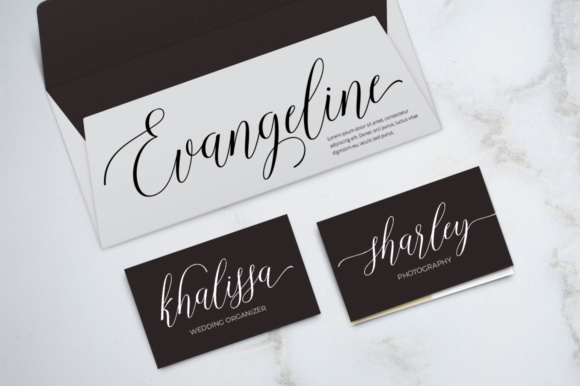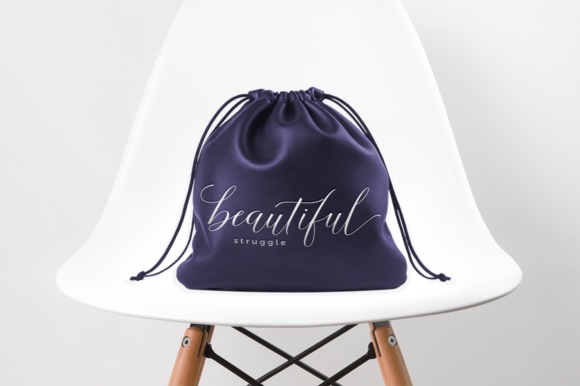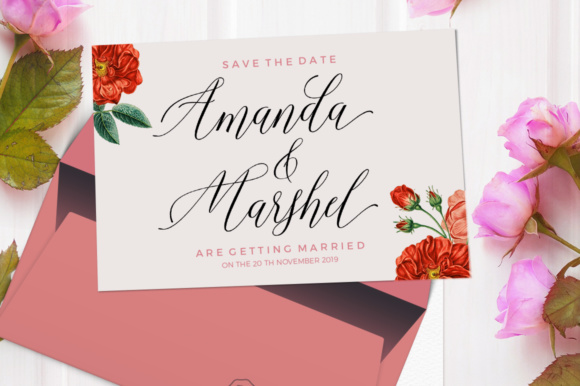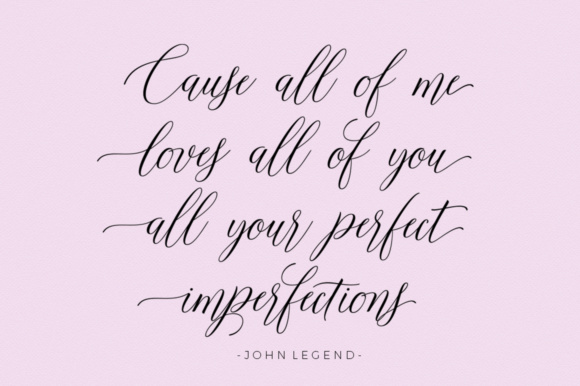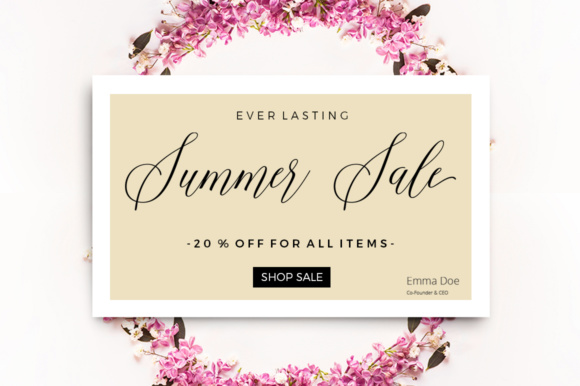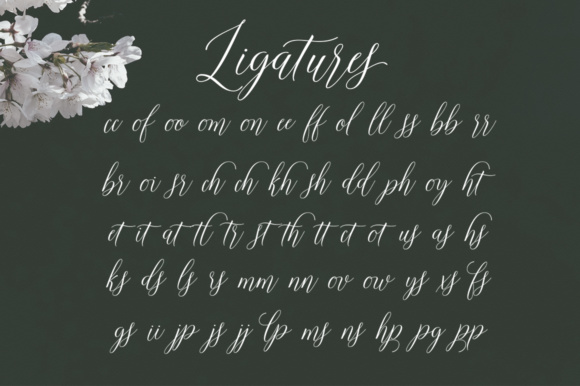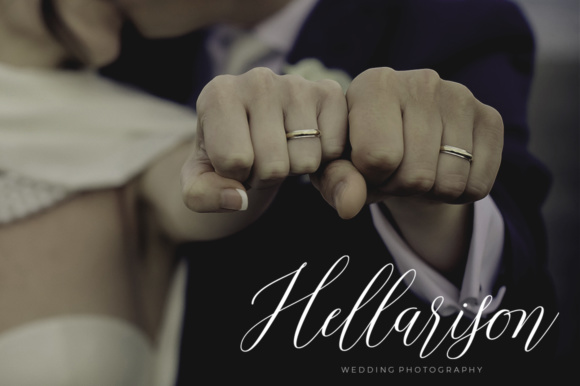
Shirelda Script Font
About Shirelda Script Font
Shirelda is a modern calligraphy font with a moving baseline and a elegant touch. It can be used for various purposes such as headings, signatures, logos, wedding invitations, t-shirts, and any other design that needs a fabulous look!